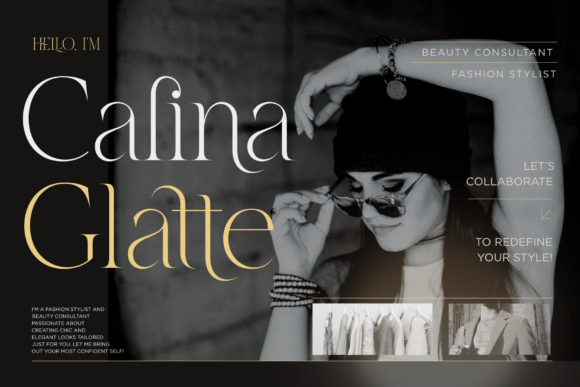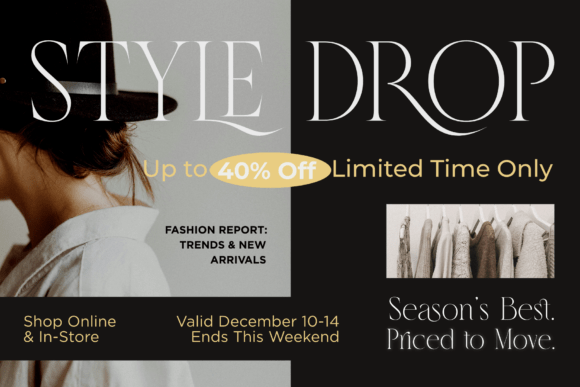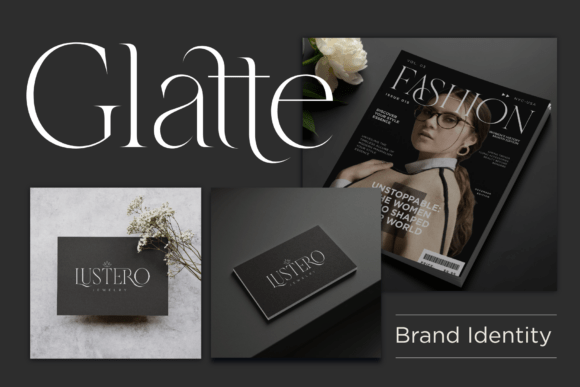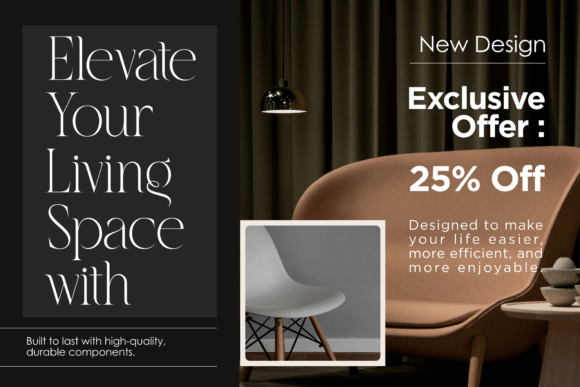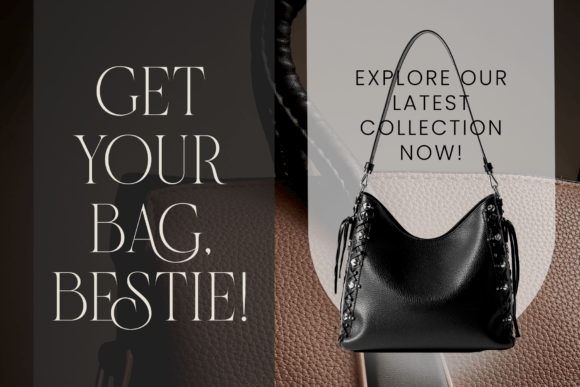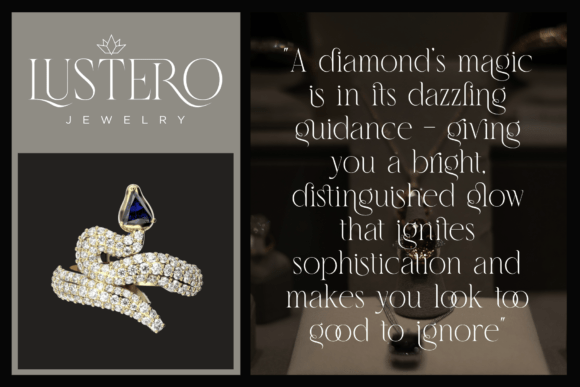
Step into Sophistication with Glatte Font
I’ll never forget the design project that led me to discover Glatte Font. I was working on a luxury branding campaign for a high-end fashion client, and I was struggling to find the perfect font that exuded elegance and sophistication. The client wanted a font that would convey a sense of refinement and style, without being too over-the-top or flashy. After hours of scouring font libraries and design marketplaces, I stumbled upon Glatte Font, and it was love at first sight.
What Makes Glatte Font Special?
Glatte Font is a modern serif font that blends timeless elegance with contemporary flair. Crafted with precision and artistic finesse, Glatte features:
- ✨ Graceful curves that add a touch of sophistication to any design
- ✅ High-contrast strokes that create a sense of luxury and refinement
- ✨ Refined serifs that whisper elegance and style
- ✨ **Versatility**: Glatte Font is perfect for a wide range of design projects, from branding and editorial design to high-end fashion and upscale packaging.
- ✅ **Attention to detail**: The font’s refined serifs and high-contrast strokes make it perfect for designs that require a touch of elegance.
- ✨ **Legibility**: Glatte Font is incredibly legible, even at small sizes, making it perfect for body text and captions.
- ⚠️ **Limited language support**: Glatte Font currently supports a limited number of languages, so it’s essential to check the font’s language support before using it for a project.
- 🤔 **Glyph limitations**: While Glatte Font has an impressive range of glyphs, it may not have every special character or symbol you need.
The Story Behind Glatte Font
Glatte Font was designed by a team of typographers and designers who wanted to create a font that would blend timeless elegance with contemporary flair. Inspired by the classic serif fonts of the past, they crafted Glatte with precision and artistic finesse, adding a touch of modernity and sophistication to the design.
| Font Name | Glatte Font |
| Author | dylla studio |
| What is Glatte Font best suited for? | Glatte Font is perfect for branding, editorial design, high-end fashion, and upscale packaging. |
| Is Glatte Font easy to read? | Yes, Glatte Font is incredibly legible, even at small sizes, making it perfect for body text and captions. |
| Is Glatte Font available in multiple weights? | Yes, Glatte Font comes in multiple weights, making it versatile and perfect for a wide range of design projects. |